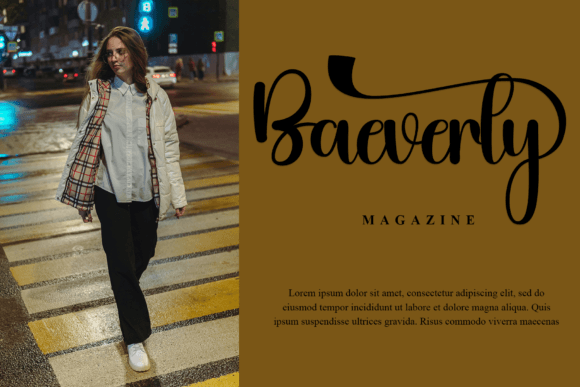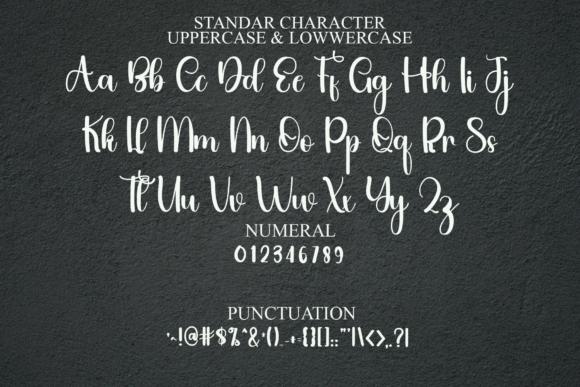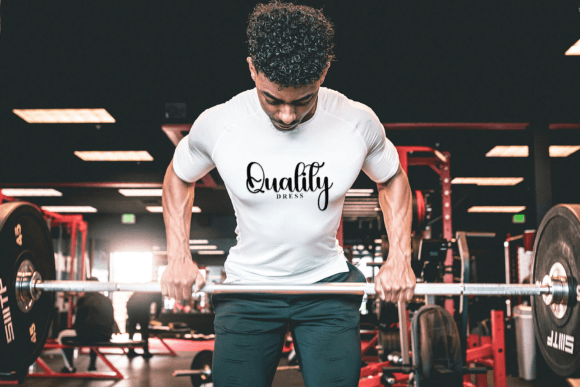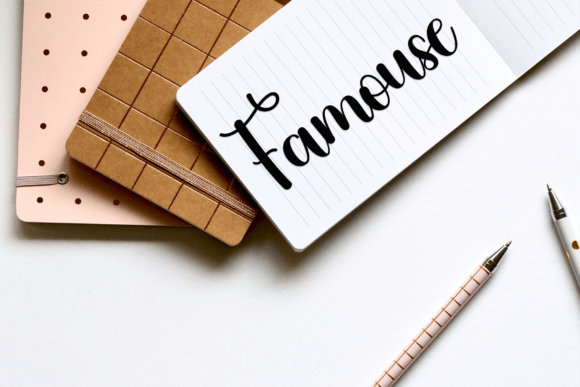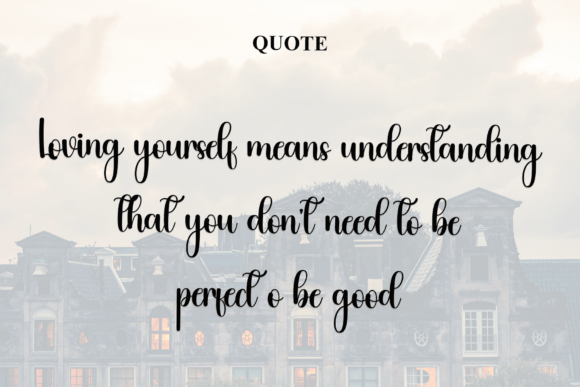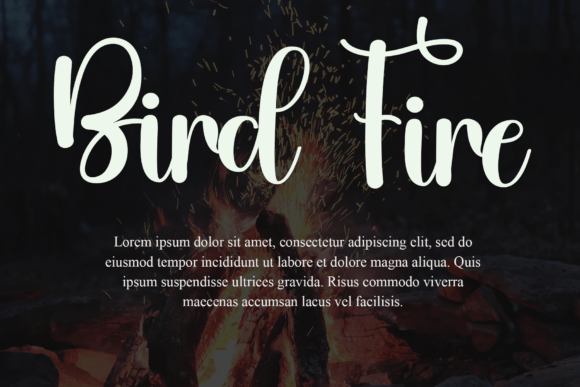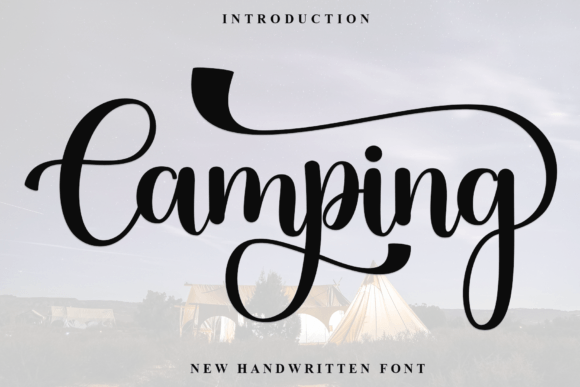
Camping Font: A Lovely and Timeless Handwritten Font for Designers and Crafters
Are you a designer or crafter looking for a unique and beautiful font to add a personal touch to your designs? Look no further than the Camping Font! This lovely and timeless handwritten font is perfect for creating eye-catching logos, branding, and quotes that will make your design come alive.
What Makes Camping Font So Special?
The Camping Font is a one-of-a-kind font that boasts a unique and beautiful touch in every letter. Its handwritten style gives it a warm and personal feel, making it perfect for designs that require a touch of elegance and sophistication. Whether you’re creating a logo, branding materials, or quotes, this font is sure to make your design stand out from the crowd.
Key Features of Camping Font
- Unique and Beautiful Touch: Every letter in the Camping Font has a unique and beautiful touch that will add a personal touch to your designs.
- PUA Coded: This font is PUA coded, which means you can access all the amazing glyphs and ligatures easily.
- Handwritten Style: The Camping Font has a handwritten style that gives it a warm and personal feel.
- Perfect for Logos and Branding: This font is perfect for creating eye-catching logos, branding, and quotes.
Why Designers and Crafters Love Camping Font
Designers and crafters love the Camping Font for its versatility and ease of use. Whether you’re creating a logo, branding materials, or quotes, this font is easy to use and can be customized to fit your design needs. The PUA coding makes it easy to access all the glyphs and ligatures, allowing you to create unique and complex designs with ease.
How to Use Camping Font in Your Designs
- Experiment with Different Sizes and Colors: The Camping Font looks great in a variety of sizes and colors, so don’t be afraid to experiment and find the perfect combination for your design.
- Pair it with Other Fonts: The Camping Font pairs well with other fonts, so try pairing it with a bold font for a contrasting look.
- Use it for Headings and Titles: The Camping Font is perfect for headings and titles, so use it to add a personal touch to your designs.
In conclusion, the Camping Font is a lovely and timeless handwritten font that is perfect for designers and crafters looking to add a personal touch to their designs. With its unique and beautiful touch, PUA coding, and handwritten style, this font is sure to make your design come alive! Whether you’re creating logos, branding materials, or quotes, the Camping Font is the perfect choice.